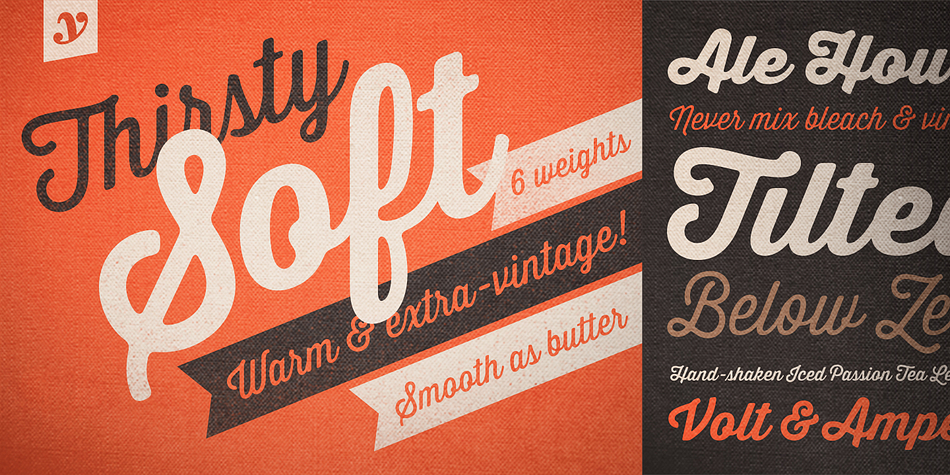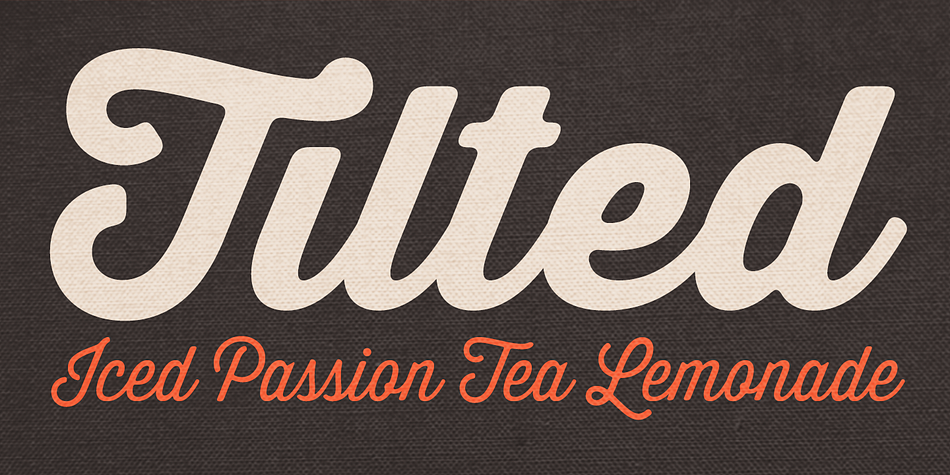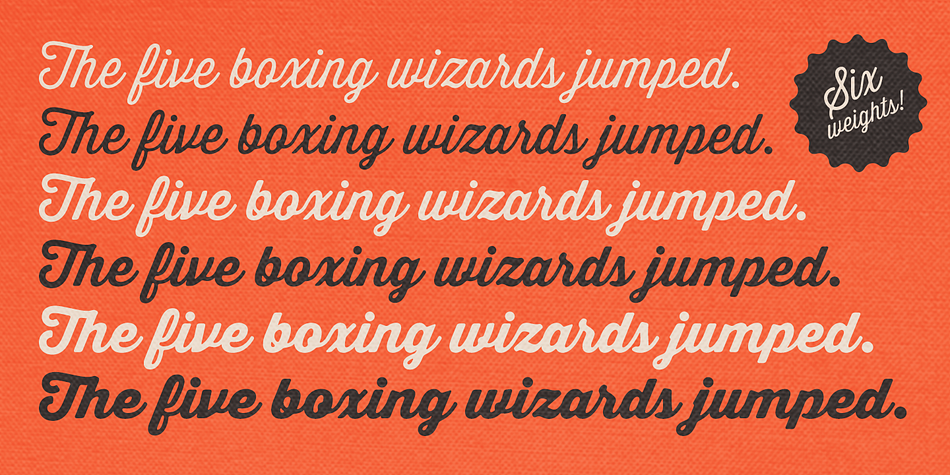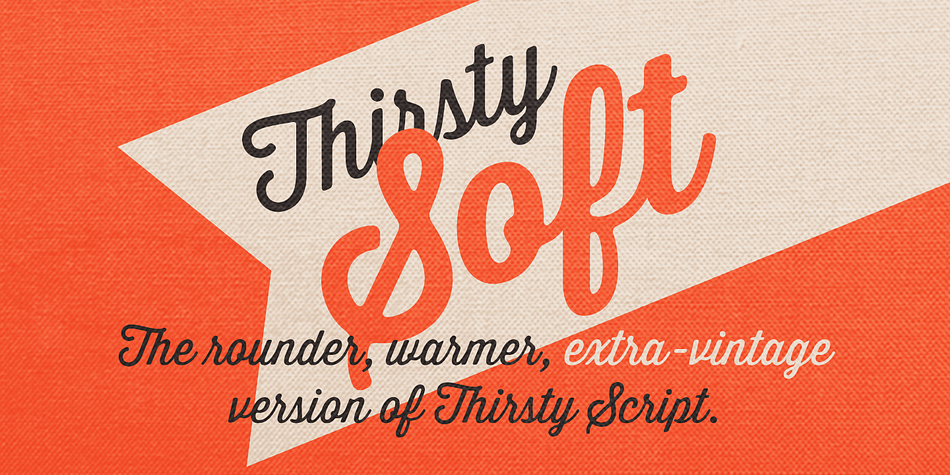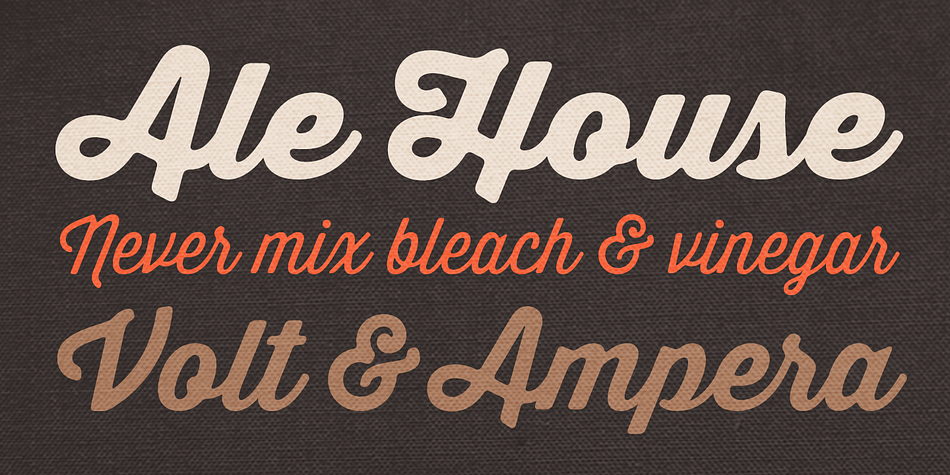
Thirsty Soft is a brush script and grunge font family. This typeface has six styles and was published by Yellow Design Studio.
Thirsty Soft from Yellow Design Studio is the rounder, warmer, extra-vintage version of Thirsty Script. While the original Thirsty Script has a caffeinated demeanor with sharp edges and pointed terminals, Thirsty Soft is warm and buttery smooth, adding friendliness and and extra level of vintage appeal.
Features include six weights from Light to Black, old-style figures, stem alternates (accessed by using the opentype feature “swash”), multiple language support, and a handy selection of ligatures and stylistic alternates.